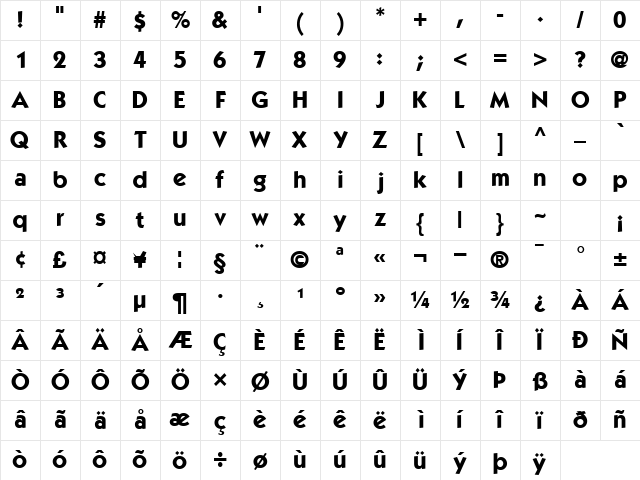
PerformaSSK Bold
PerformaSSK Family
Complete PerformaSSK Bold glyph index. Displaying only characters natively supported by PerformaSSK Bold font.
Design Context for PerformaSSK
PerformaSSK is a composed and adaptable typeface that performs quietly and consistently across a wide range of design contexts. Its bold stroke weight gives it real presence on the page.